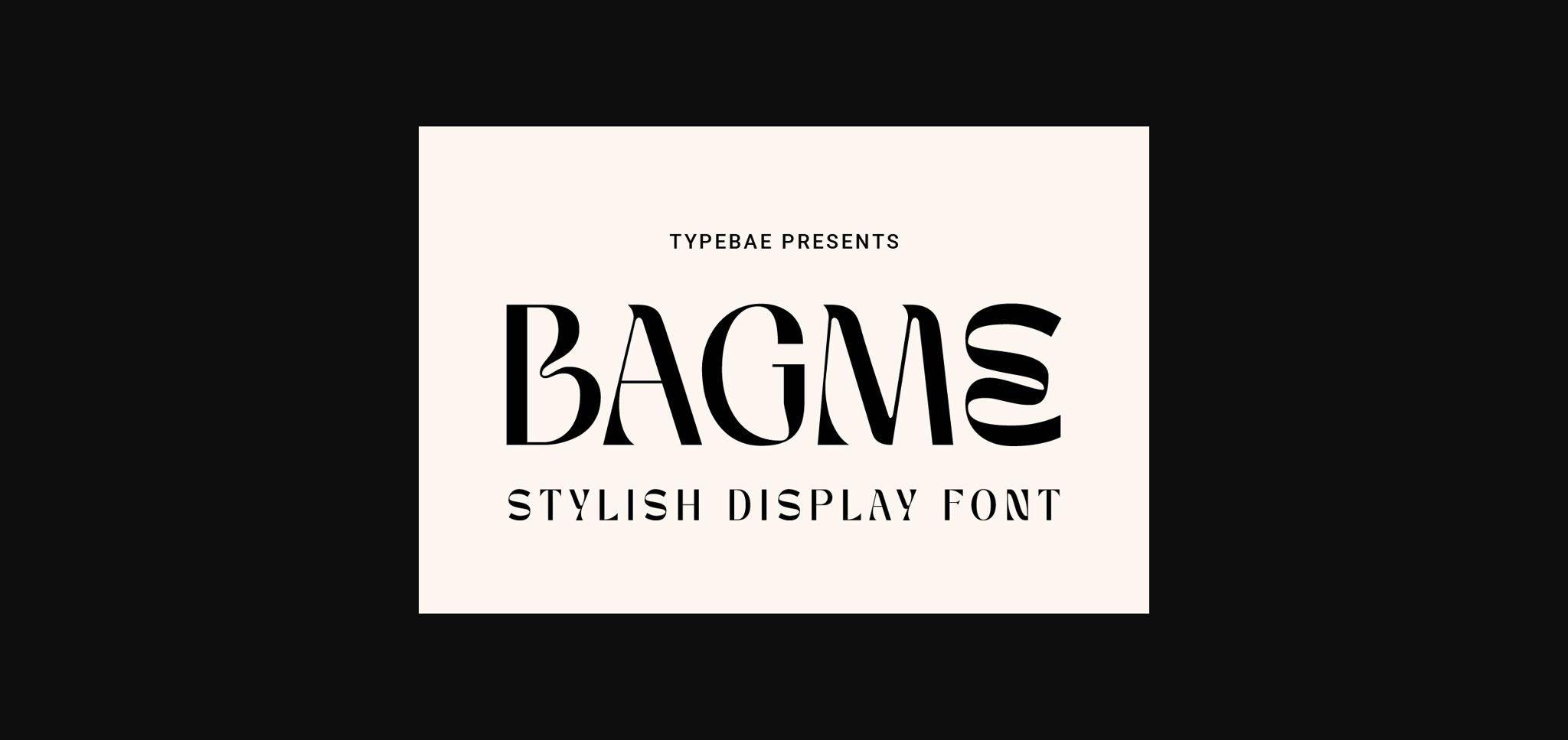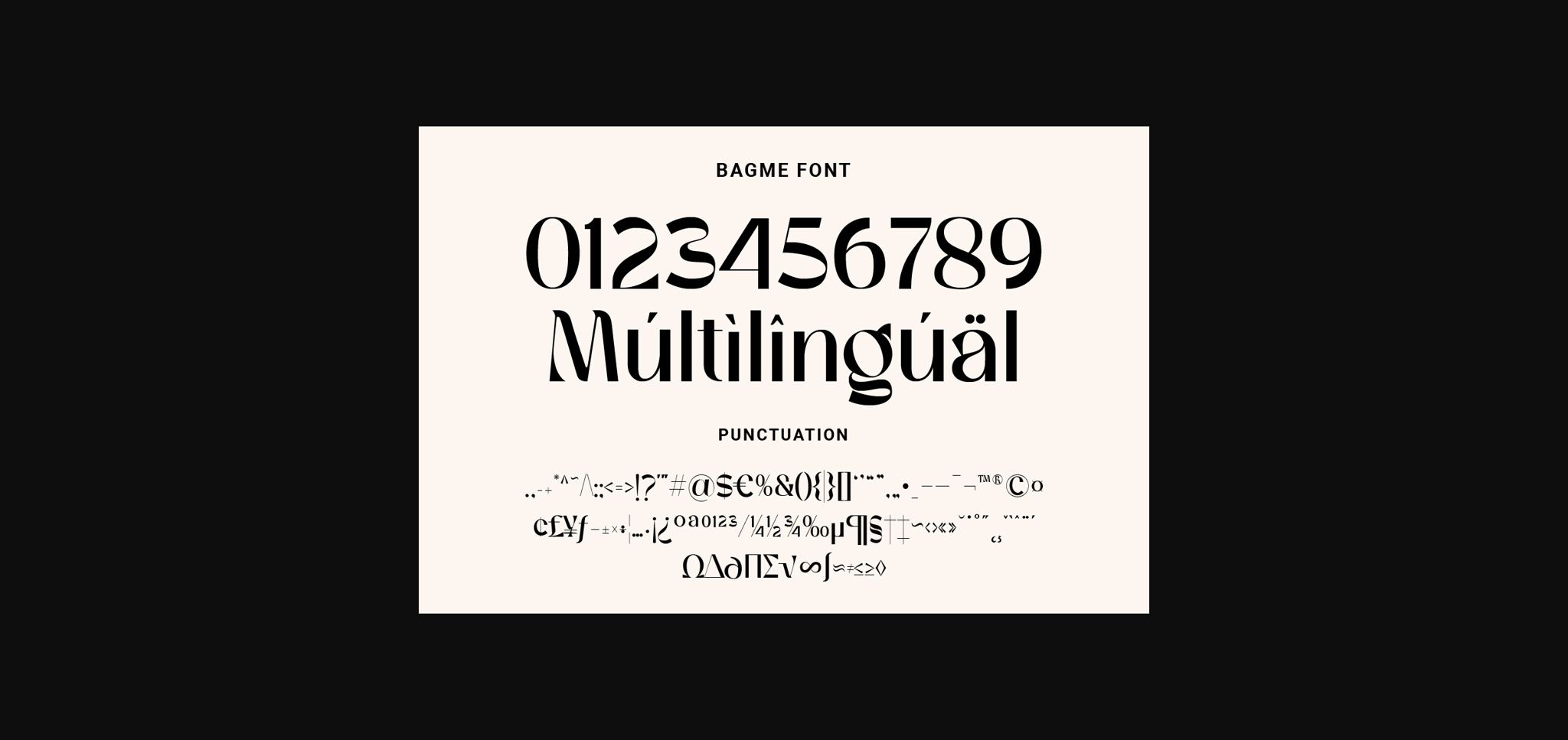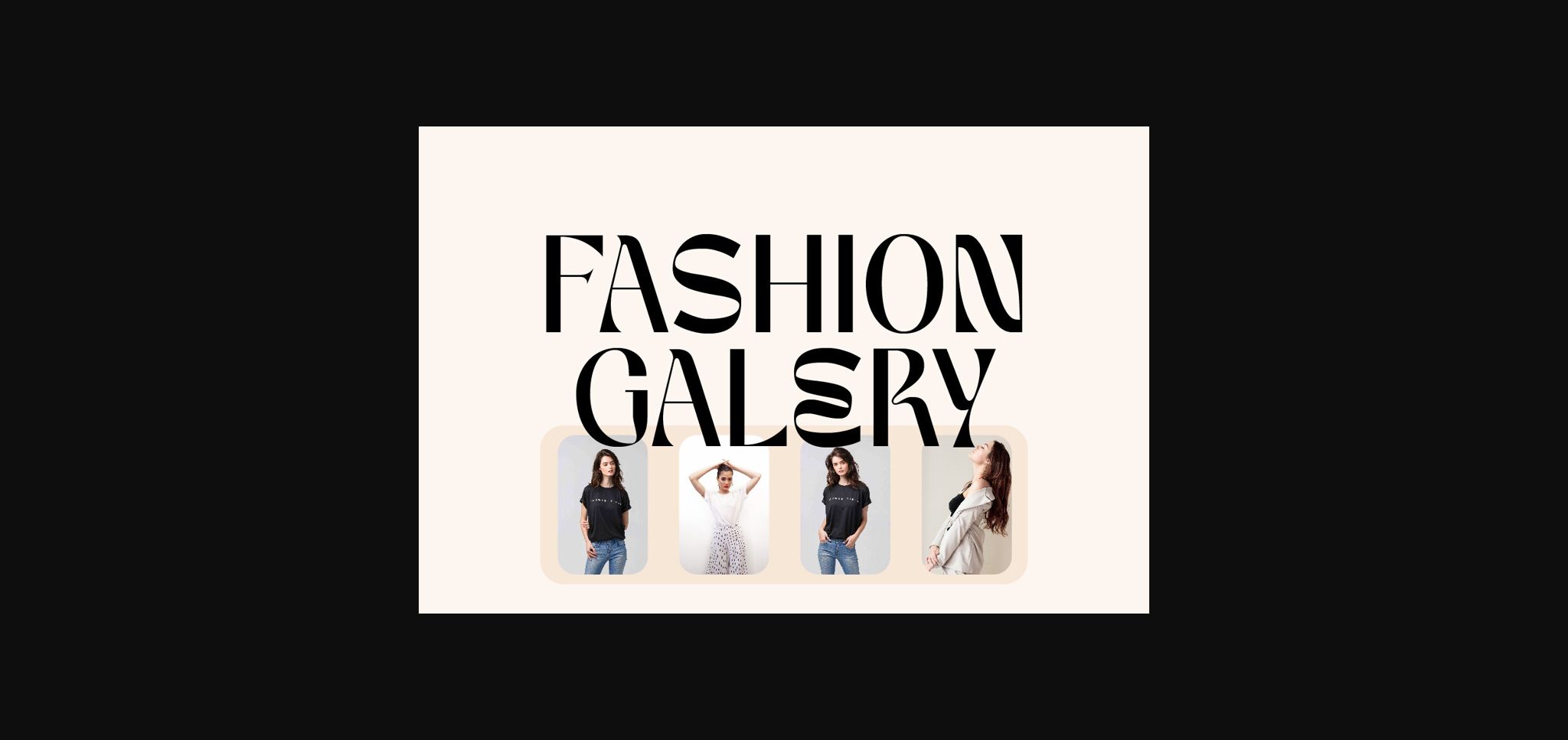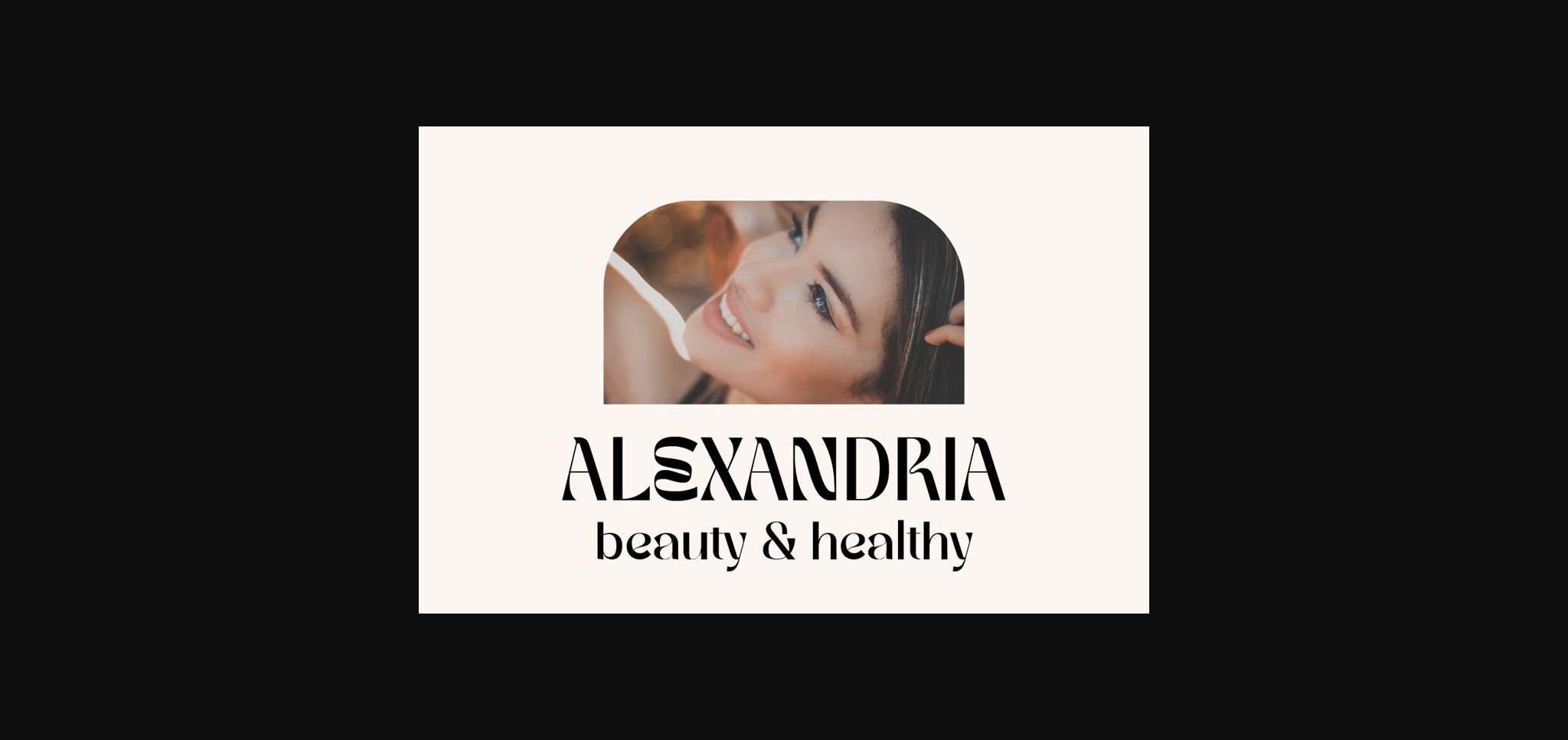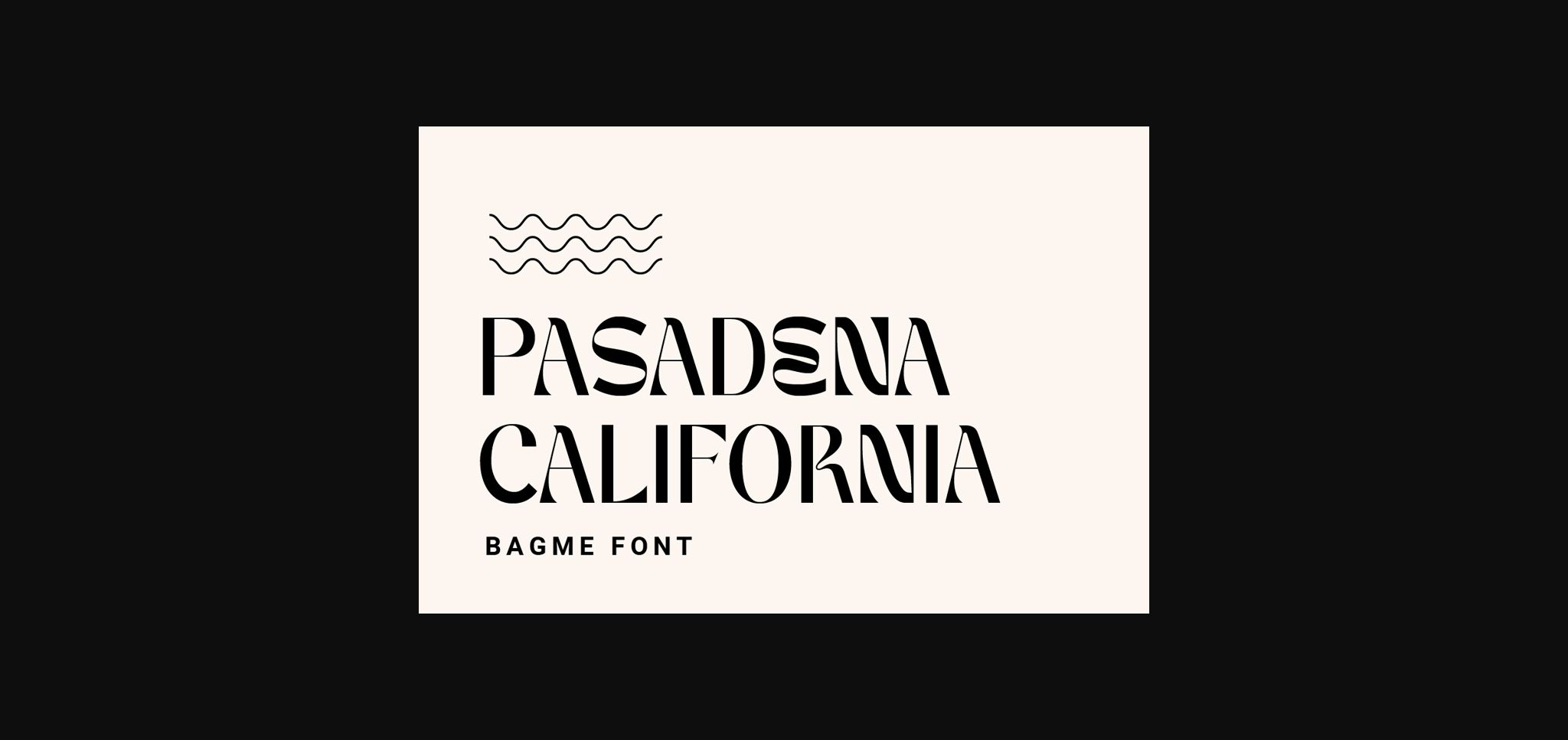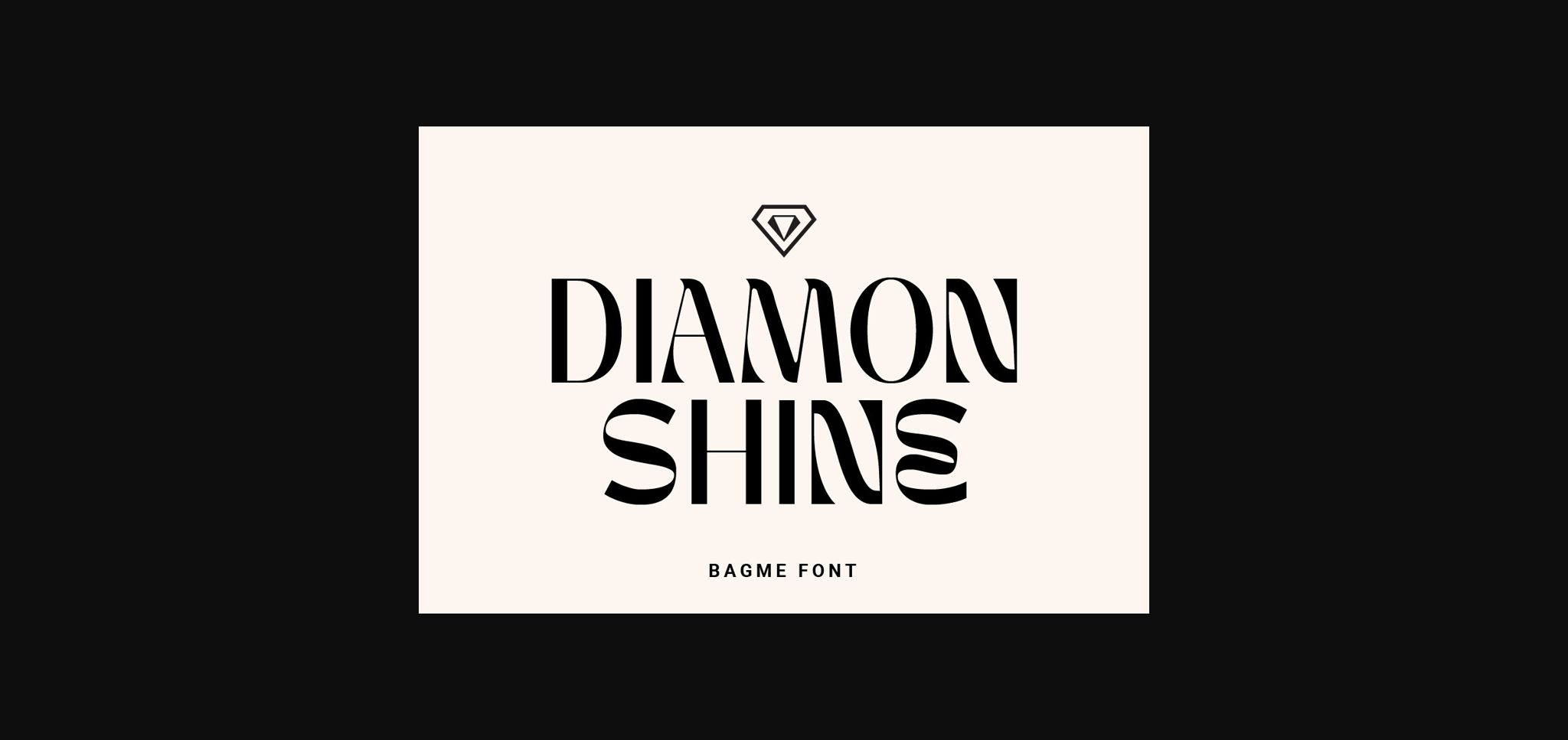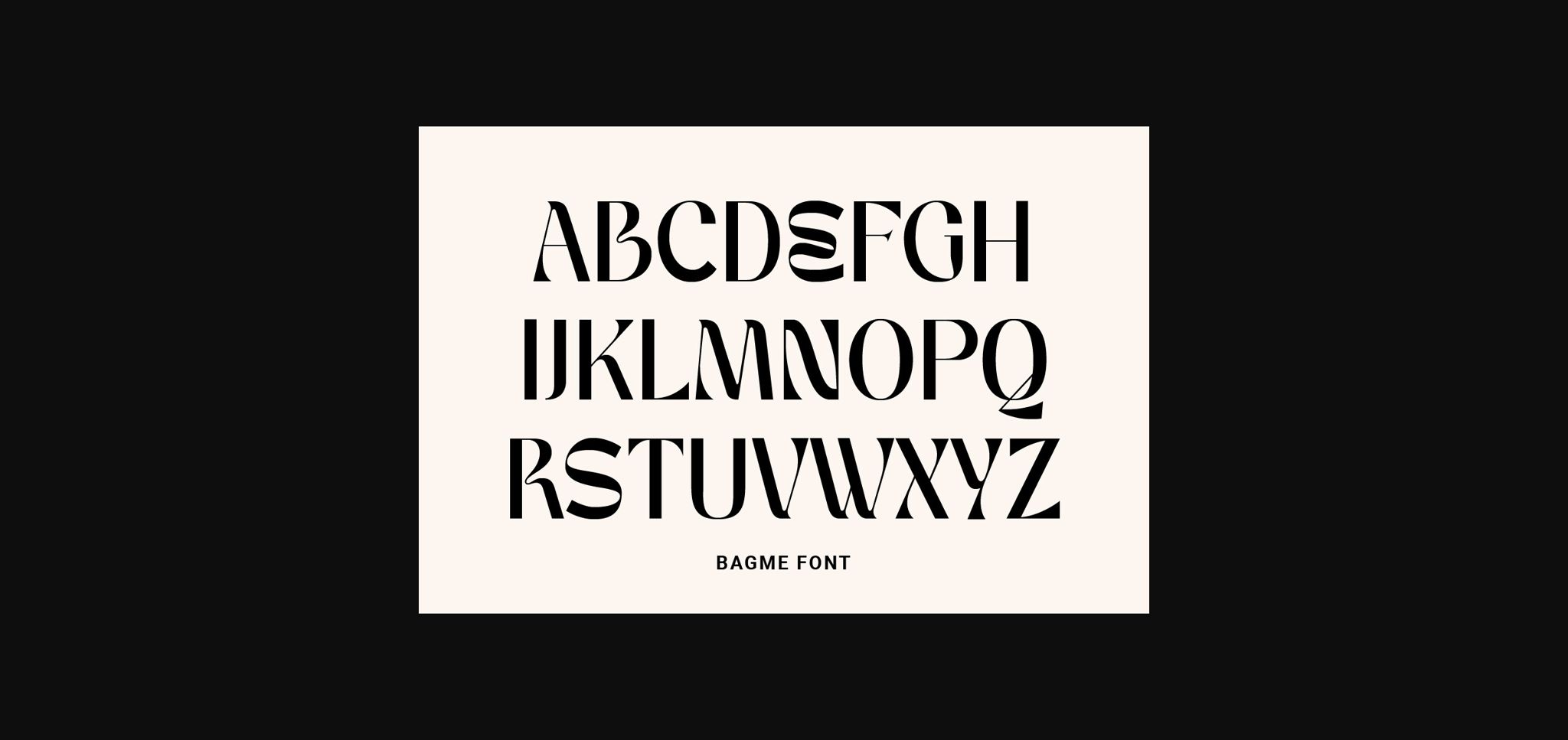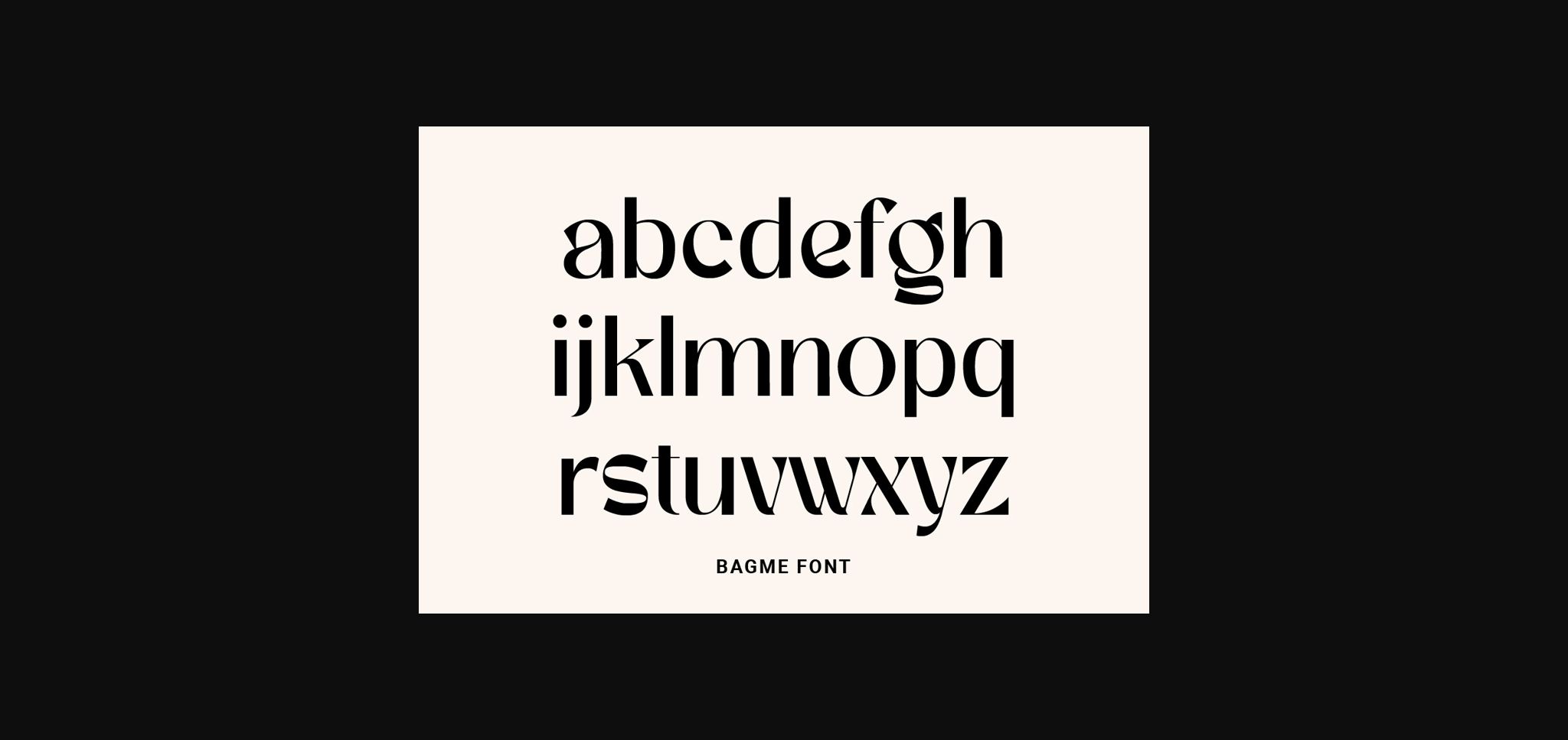
HomeSans Serif FontsBagme Font Sans Serif Fonts Bagme Font FacebookTwitterPinterestWhatsApp 1 of 10 ... Bagme Font Poster 2... Bagme Font Poster 3... Bagme Font Poster 4... Bagme Font Poster 5... Bagme Font Poster 6... Bagme Font Poster 7... Bagme Font Poster 8... Bagme Font Poster 9... Bagme Font Poster 10... About Bagme Font BAGME is a stylish display typeface. Has a distinct curve and a lively personality. Ideal for projects that require a distinct personality. DOWNLOAD NOW 142 0 People also explored Easy Ornaments Font Entertainers Font Antique Fontbear Font Regia Font Naomi Font Mock-Up Farmhouse Sign Affah Font Serfeb Font Ornaments Cute Font Sporting Vaneska Font Unofficial Font TagsBagmeBagme Font Previous articleBamzer FontNext articleBubble Valentine Font LEAVE A REPLY Cancel reply Comment: Please enter your comment! Name:* Please enter your name here Email:* You have entered an incorrect email address! Please enter your email address here Website: Save my name, email, and website in this browser for the next time I comment. Unlock Endless Creativity with the FREE September Clipart Huge Bundle (Valued at $700!) Personal Use Free Lynoselt Personal Use Free Read more Doodle Font Personal Use Free Read more Bestlife Personal Use Free Read more Stronger Personal Use Free Read more BLOG To increase your work productivity, choose the most readable fonts. In today's fast-paced work environment, where digital communication and information consumption are integral to our daily routines, the choice of fonts can significantly impact... The 10 Best Handwriting Fonts to Add Personality to Your Designs Using Fonts in Digital Marketing: Tips to Strengthen Your Brand Identity Free Fonts Risk: Why Free Fonts Can Be Dangerous for Designers